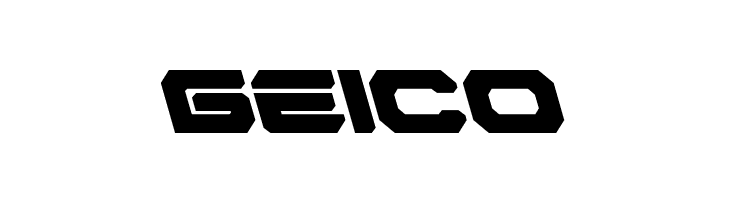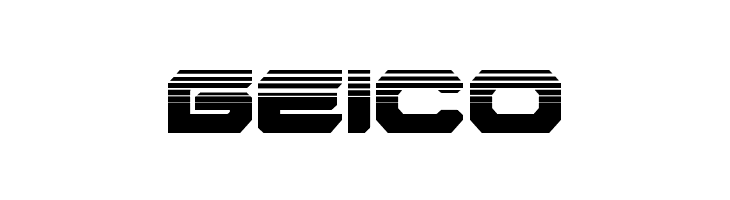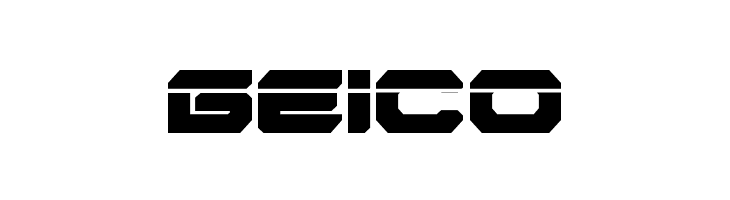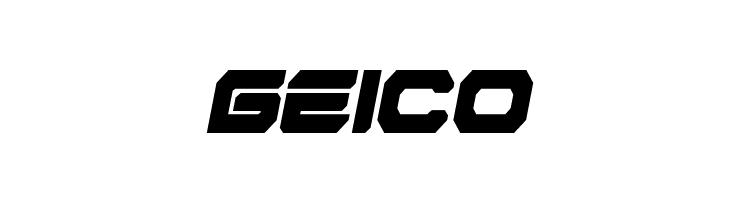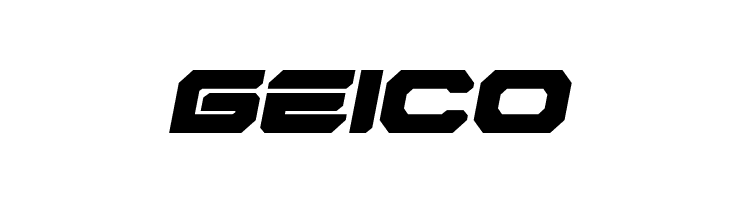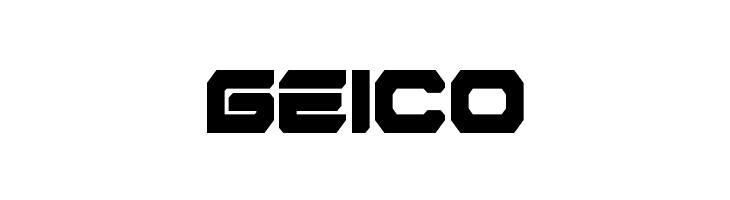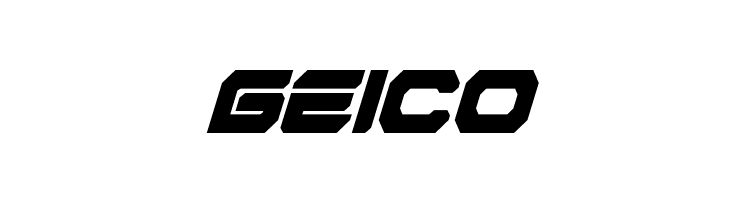
• Hyper heliX Italic
A futuristic, italic font with sharp angles and a dynamic, modern design.
• Hyper Kinetic
• Hyper Script Demo
A playful script font with fluid, continuous strokes and a whimsical charm.
• Hyper Viper
A bold, futuristic font with angular, geometric shapes.
• Hyper Viper 3D
A bold, 3D geometric font with a futuristic style.
• Hyper Viper 3D Italic
A bold, italicized 3D font with a futuristic and dynamic design.
• Hyper Viper Condensed
A bold, futuristic, and geometric font with a condensed style.
• Hyper Viper Condensed Italic
A bold, italicized, and condensed font with a futuristic and dynamic style.
• Hyper Viper Condensed SemiItal
A bold, condensed, semi-italic font with a futuristic and dynamic style.
• Hyper Viper Expanded
A bold, angular, and futuristic font with expanded width and tight spacing.
• Hyper Viper Expanded Italic
A bold, expanded, and italicized futuristic font with sharp angles.
• Hyper Viper Expanded Semi-Ital
A bold, expanded, and semi-italicized font with a futuristic, angular design.
• Hyper Viper Gradient
A bold, futuristic font with a gradient effect and sharp, angular design.
• Hyper Viper Gradient Italic
A bold, italicized font with gradient stripes and a futuristic style.
• Hyper Viper Halftone
A bold, futuristic font with a halftone effect and geometric design.
• Hyper Viper Halftone Italic
A bold, italicized font with a futuristic halftone effect.
• Hyper Viper Italic
• Hyper Viper Laser
A bold, futuristic font with sharp angles and a stencil-like design.
• Hyper Viper Laser Italic
A bold, futuristic italic font with sharp angles and a dynamic style.
• Hyper Viper Laser Semi-Italic
A bold, futuristic font with sharp angles and a semi-italic slant.
• Hyper Viper Leftalic
A bold, futuristic font with angular, geometric shapes and a slight italic slant.
• Hyper Viper Semi-Italic